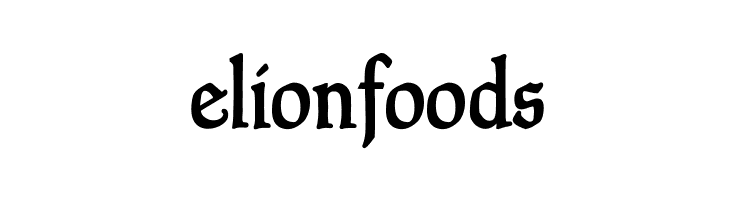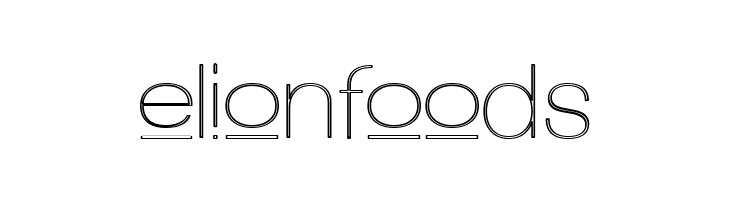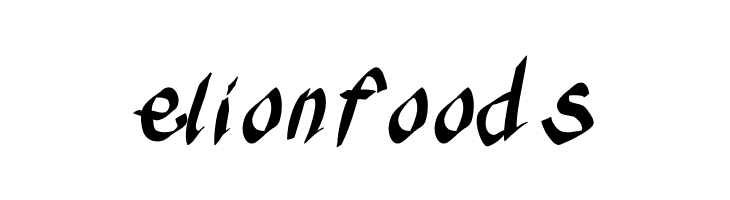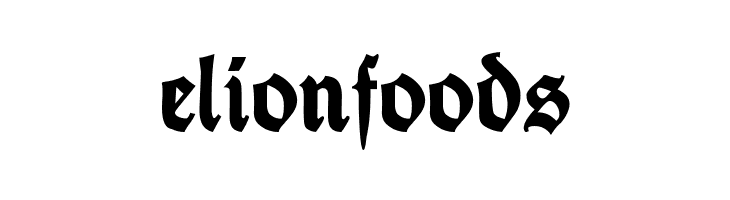
A classic blackletter font with bold, angular letterforms and a narrow design.
A bold, wide slab serif font with consistent strokes and prominent serifs.
A classic and elegant serif font with vintage charm and strong presence.
A modern, expanded font with clean, geometric lines and a professional appearance.
A modern, geometric font with consistent stroke widths and a clean design.
A bold and expressive script font with fluid, connected strokes.
A bold, ornate blackletter typeface with a Gothic, medieval style.